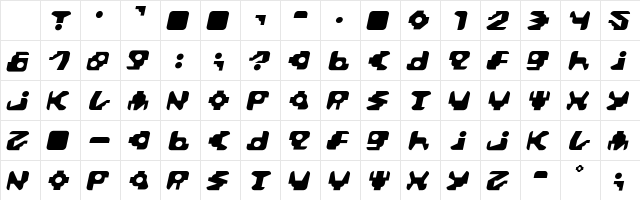
Complete Paccer Italic glyph index. Displaying only characters natively supported by Paccer Italic font.
Paccer is a composed and adaptable typeface that performs quietly and consistently across a wide range of design contexts. The slanted form adds forward momentum and visual energy.
Pro Tip: Use Paccer for emphasis, pull quotes, and subheadings where its slanted energy can add rhythm to the layout.